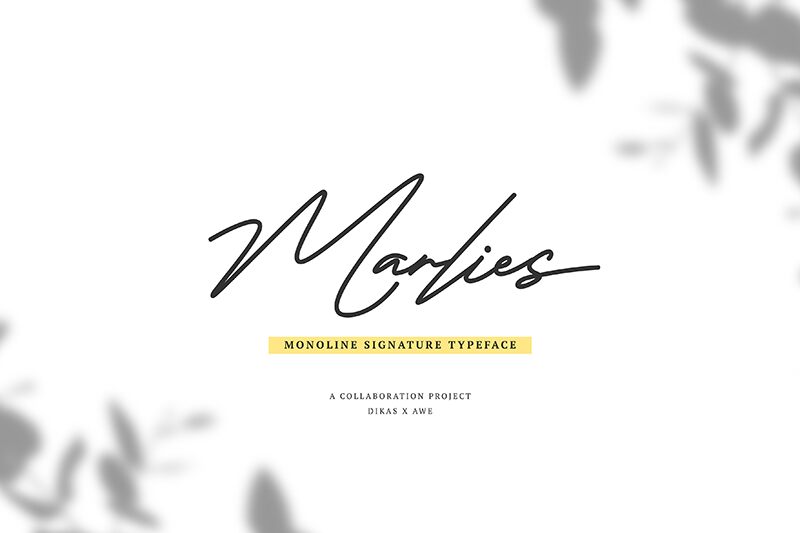
Marlies, a captivating handwritten signature font crafted by Andika Setiawan and Afiffah Widya, exudes a sense of effortless elegance and personal charm. Its light weight and organic strokes lend an authentic, expressive quality, making it an ideal choice for branding, stationery, and editorial design projects.
The font's fluid, cursive lines and varied pen pressure create a distinct, artisanal aesthetic that adds a touch of warmth and personality to any design. Its natural flow and expressive quality make Marlies a versatile option for everything from wedding invitations to product packaging.
Marlies' versatility extends to a wide range of applications, from branding and packaging to digital design and print materials. Its unique character and creative flair make it a standout choice for designers seeking to infuse their work with a handcrafted, personal touch.
Andika Setiawan & Afiffah Widya